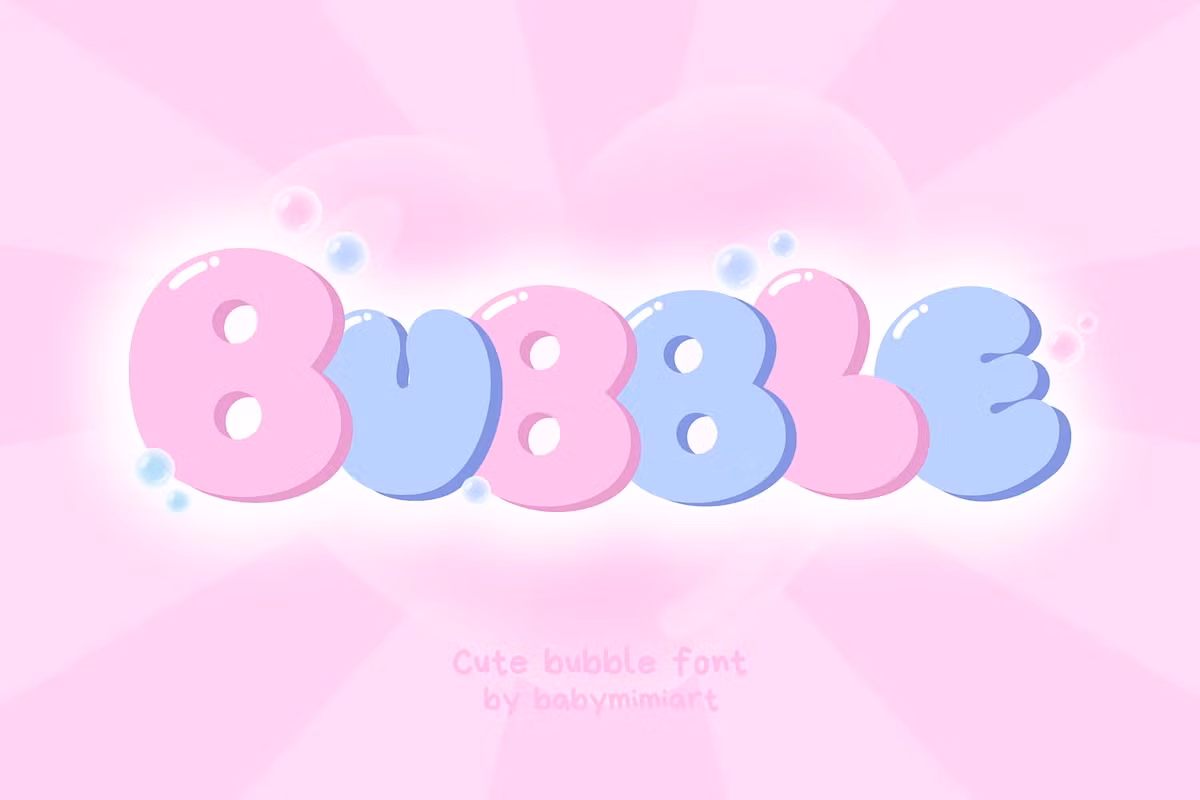
The Bubble Font Free Download is a playful and fun typeface that brings a sense of joy and lightheartedness to your designs. With its rounded, bubbly letterforms, this font is perfect for projects that require a cheerful, youthful vibe. Whether you're working on party invitations, children's books, branding, or social media graphics, Bubble Font adds a whimsical and approachable touch to any creative project.
Bubble Font Free Download is ideal for designers who want to add a fun and friendly style to their work. Whether you're designing for a children's brand, an event, or a playful project, this font will make your designs stand out. Download this bubbly, energetic font today and give your creative work a light, joyful flair!